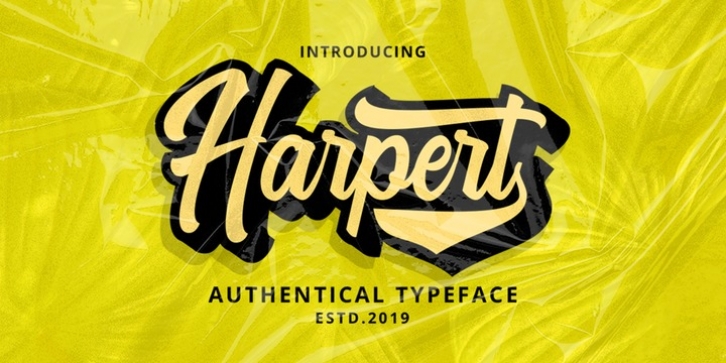
Harpert Script is inspired by retro design and hand lettering styles. I've made every single curve to have a ton of personality. I hope this can inspire you in your work! It contains a very bouncy baseline. Ideal for logos, handwritten quotes, product packaging, header, poster, merchandise, social media & greeting cards.